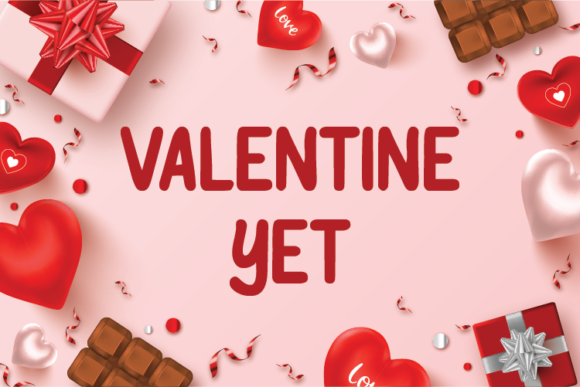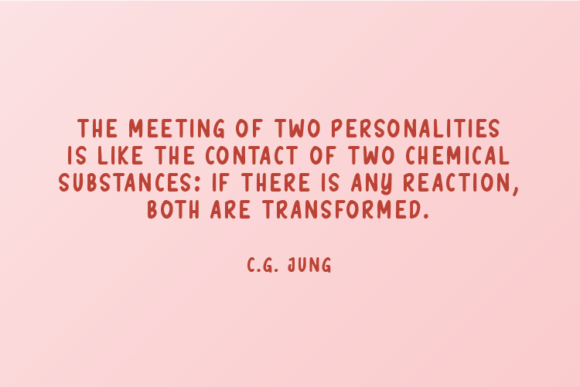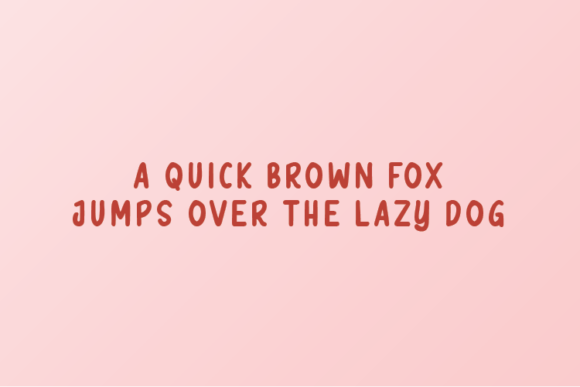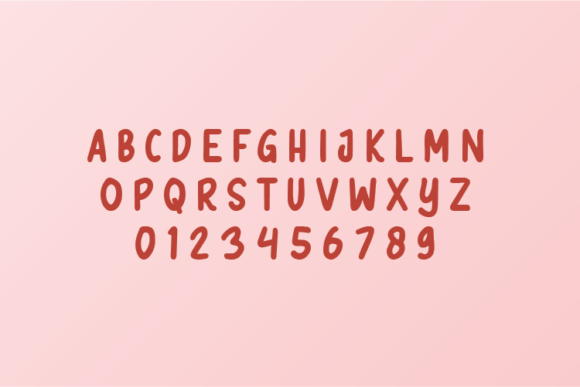
Valentine Yet Font
About Valentine Yet Font
Valentine Yet is a simple and natural handwritten font. The curves in each arrangement make it look unique and casual. It looks great when used on quotes, diaries, books, posters, and invitations.